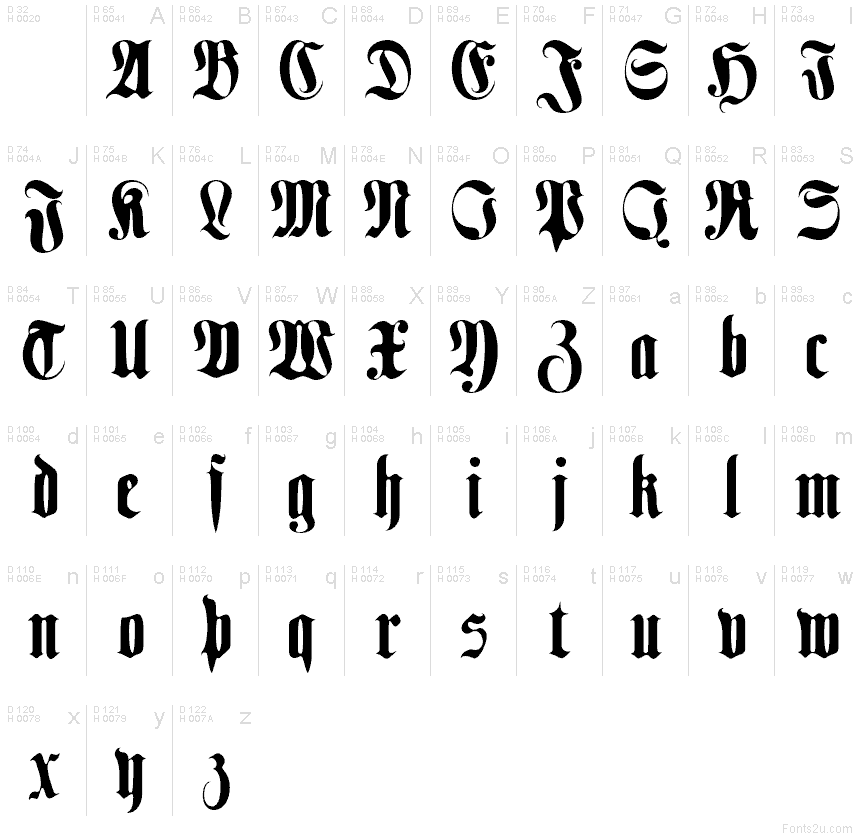
CS Gamila font by Craft Supply Co. is a gothic medieval typeface with a condensed design showcased across all its unique aspects. It features uniform letter shapes with detailed designs and characters that can truly make any project stand out for all the right reasons.
With this free historical font, lots of possible ideas are at hand including album artworks, movie posters, books’ covers and inner pages, video games interfaces, projects about the myths of the middle ages, and more!